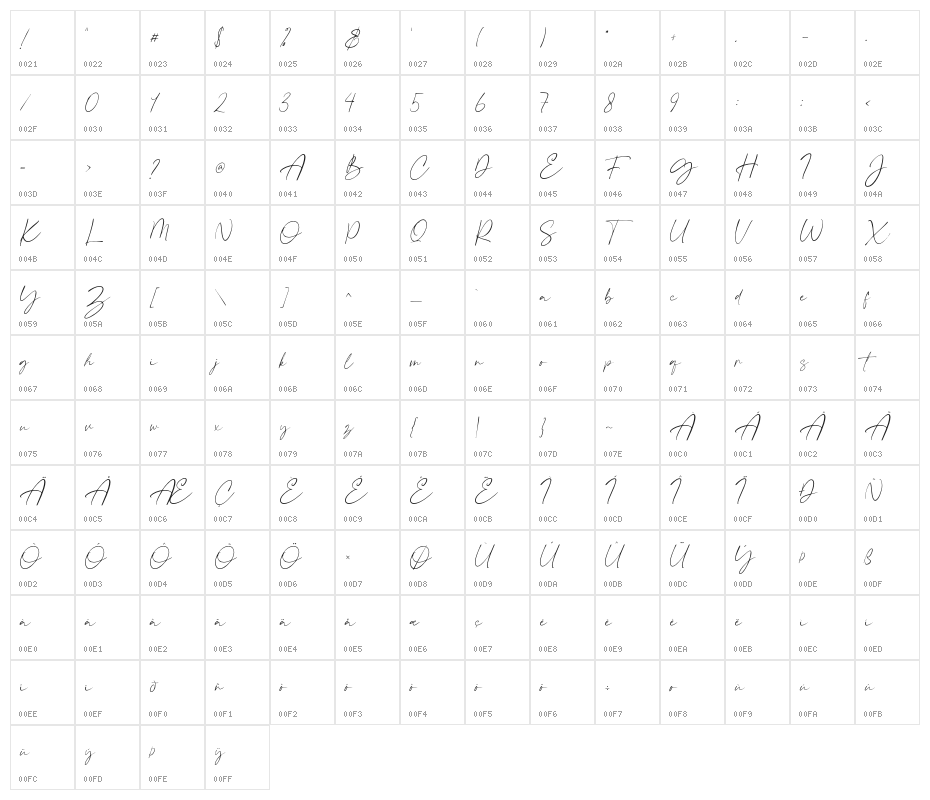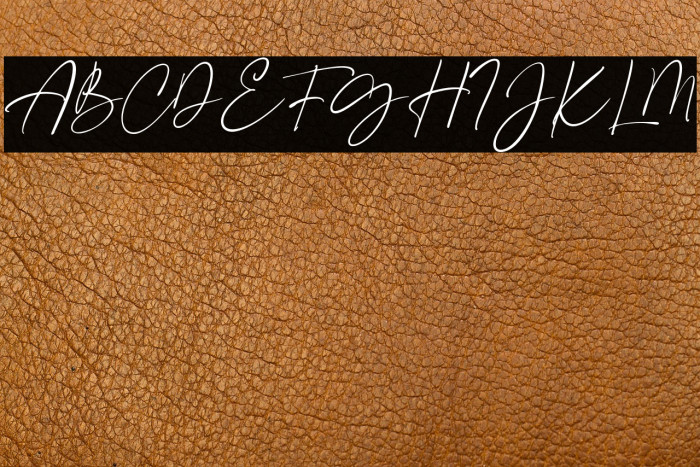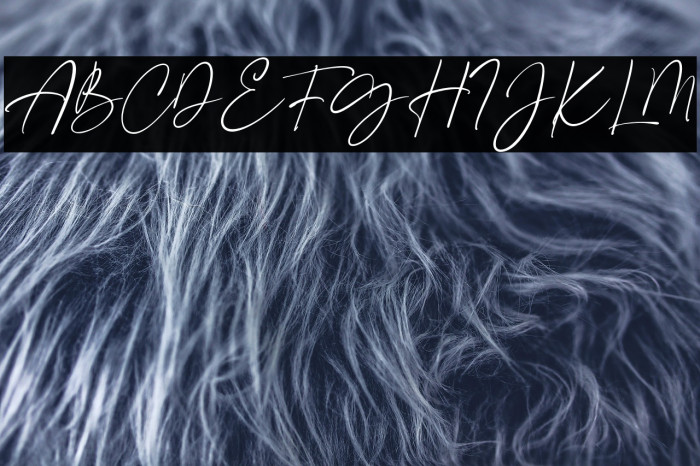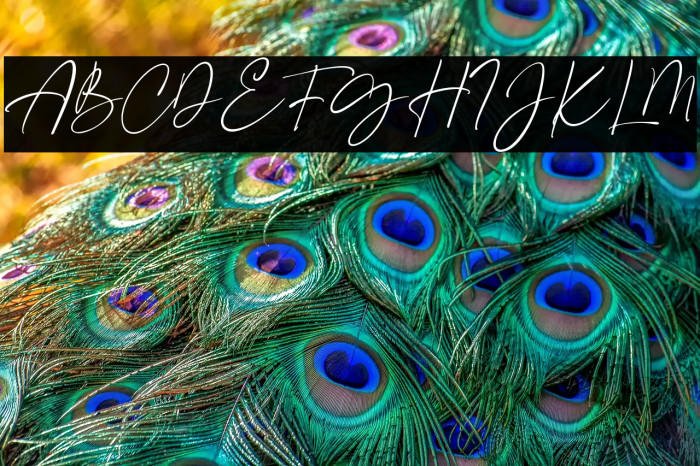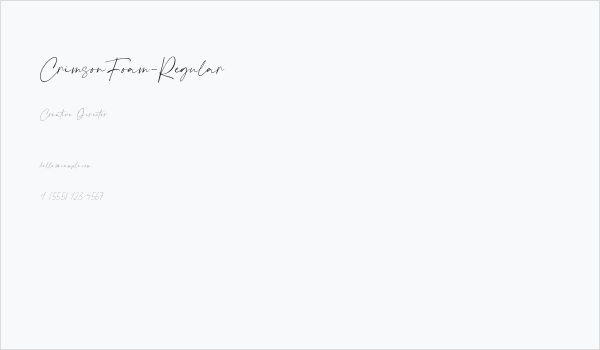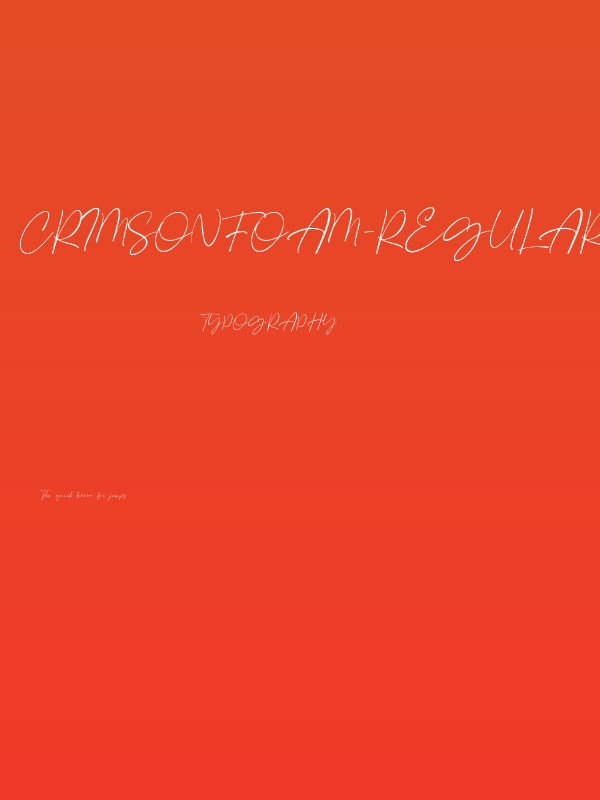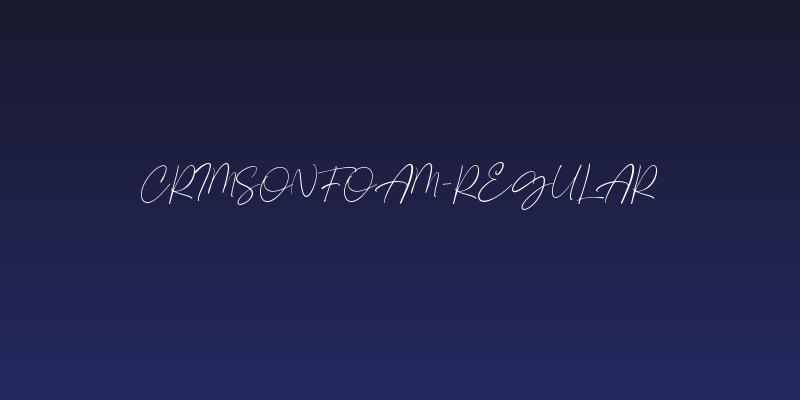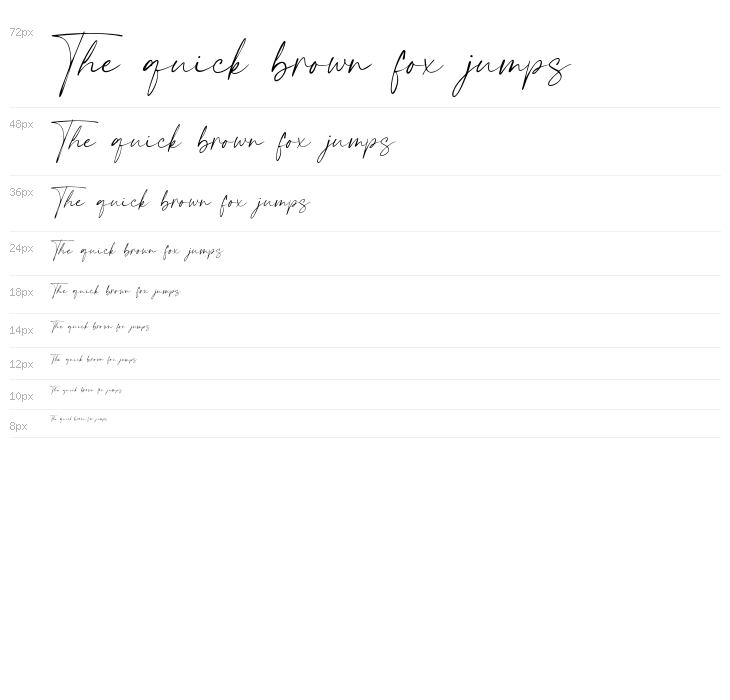
CrimsonFoam-Regular Font
CrimsonFoam-Regular Description
This font exudes a sense of elegance and fluidity, characterized by its cursive, handwritten style. The letters are connected with smooth, flowing strokes that give it a natural and organic feel. The uppercase letters are tall and slightly slanted, while the lowercase letters maintain a consistent flow, enhancing readability. The numerals and special characters are designed to complement the overall aesthetic, maintaining the same graceful curves and delicate lines. This font is perfect for adding a personal touch to any project, making it ideal for invitations, greeting cards, and other creative designs.
| Overall Style | Elegant, Handwritten |
| Proposed Projects | Ideal for wedding invitations, greeting cards, personal branding, and artistic projects. |